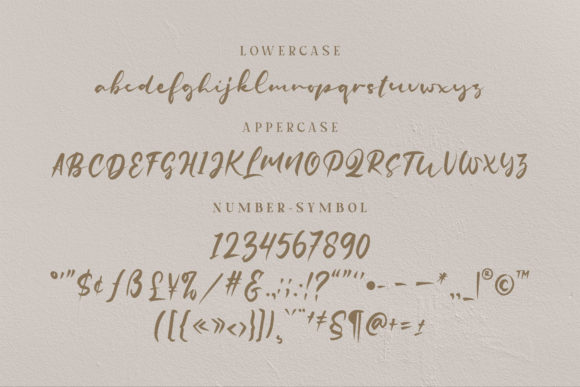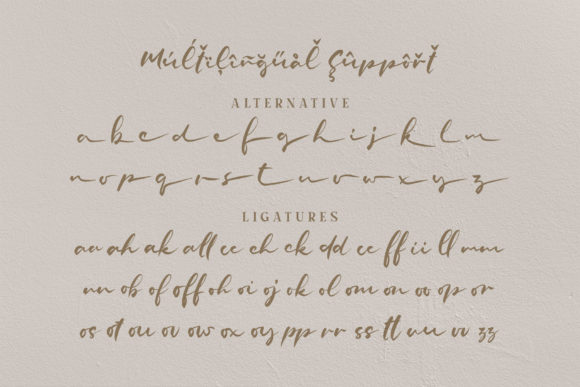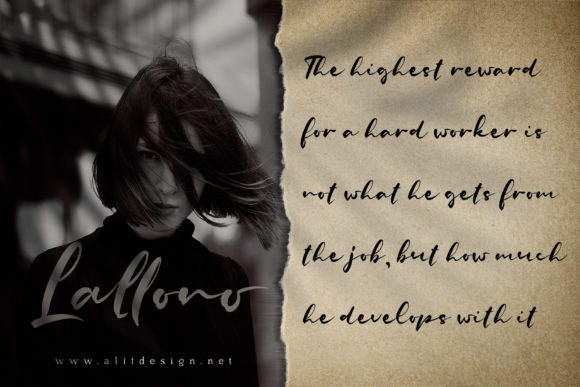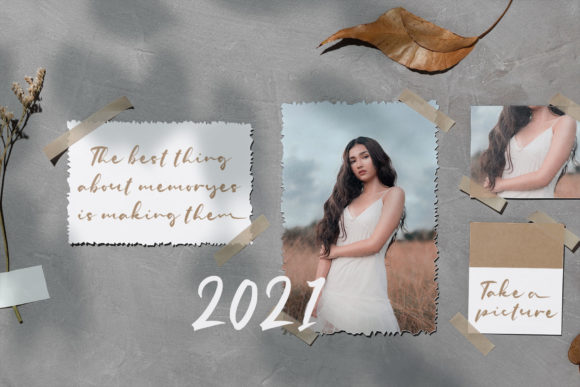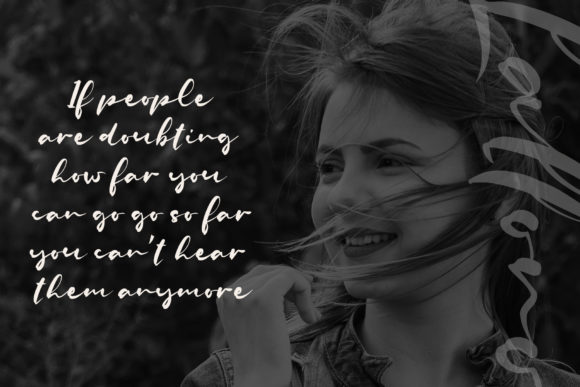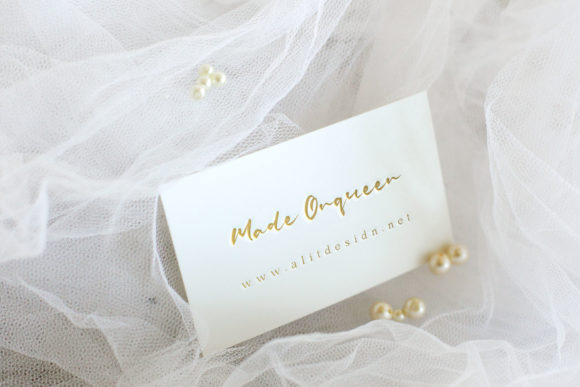
Introduction to Lallono Font Font
Fonts play a crucial role in design, and the Lallono Font font is a typeface that brings both character and versatility to any project. Whether you’re working on a branding project, a website, or a print design, the Lallono Font font offers a unique style that can elevate your work.
Lallono is a stylish and graceful script font.
It looks ravishing on wedding invitations, thank you cards, quotes, greeting cards, logos, business cards and every other design which needs a personalized touch This font is PUA encoded which means you can access all of the glyphs and swashes with ease.
Key Features of Lallono Font Font
Why Choose Lallono Font Font?
The Lallono Font font is more than just a typeface – it’s a design tool that helps you communicate your message with style and clarity. Its unique character set and versatile design make it suitable for a wide range of applications, from elegant invitations to bold headlines.
With its carefully crafted letterforms and balanced proportions, the Lallono Font font ensures readability and visual appeal across all mediums.
What makes Lallono Font font special?
The Lallono Font font stands out with its unique design, exceptional readability, and versatility across various design applications.